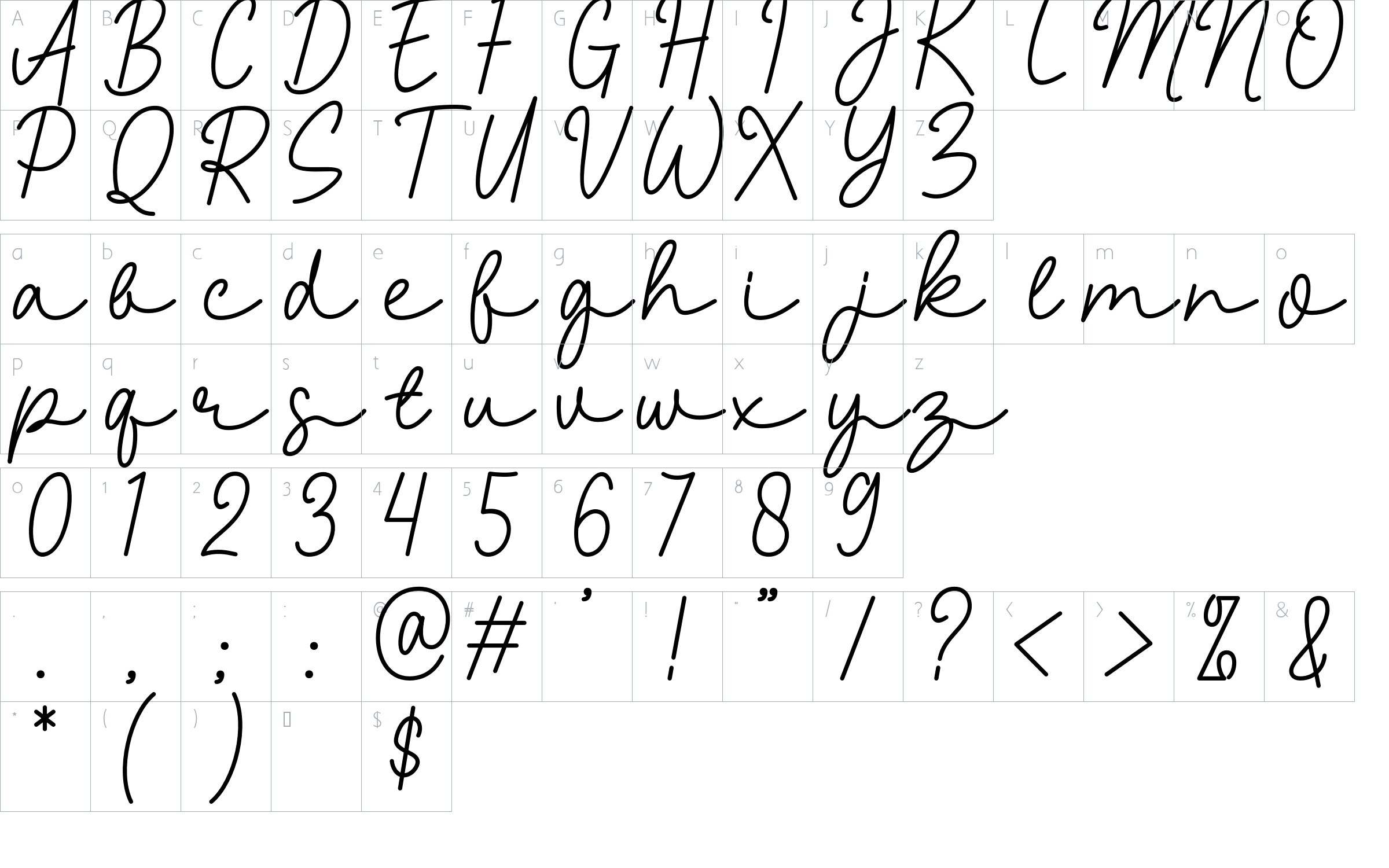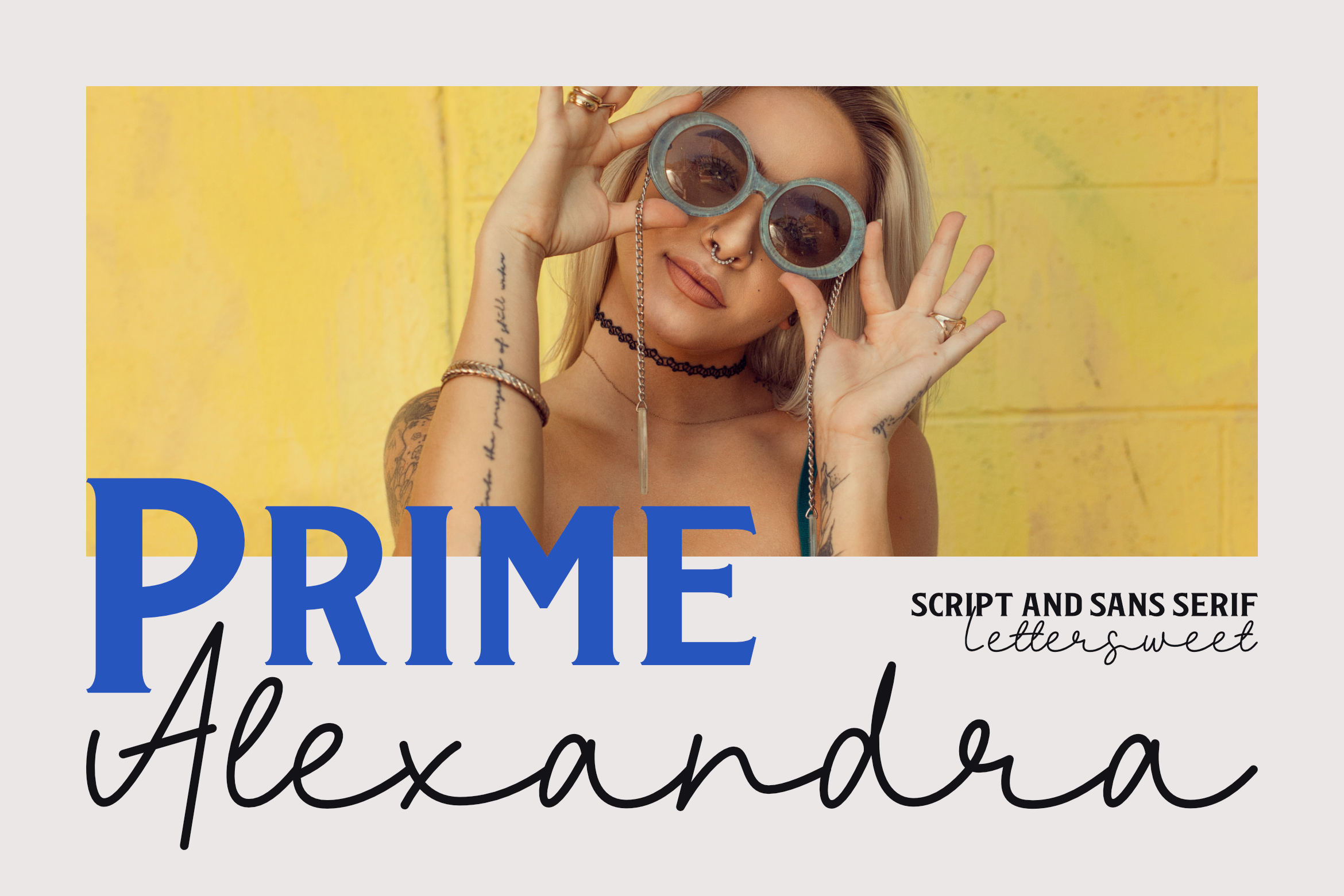
Prime Alexandra - Font Duo Font
About Prime Alexandra - Font Duo
Prime Alexandra is a stylish and delicate duo font (sans serif and script) suitable for a wide spectrum of applications. From greeting cards to headlines, this font will guarantee a romantic touch to each of your creations!